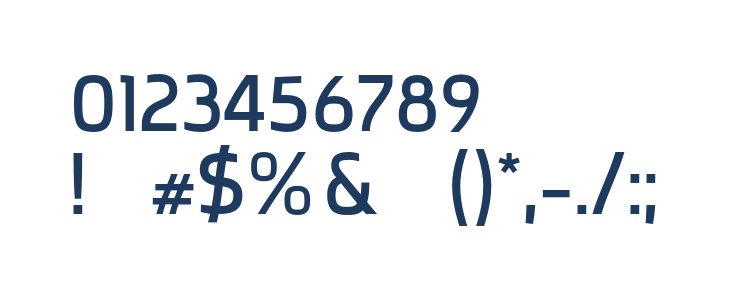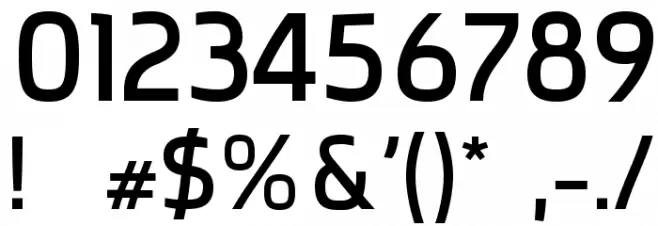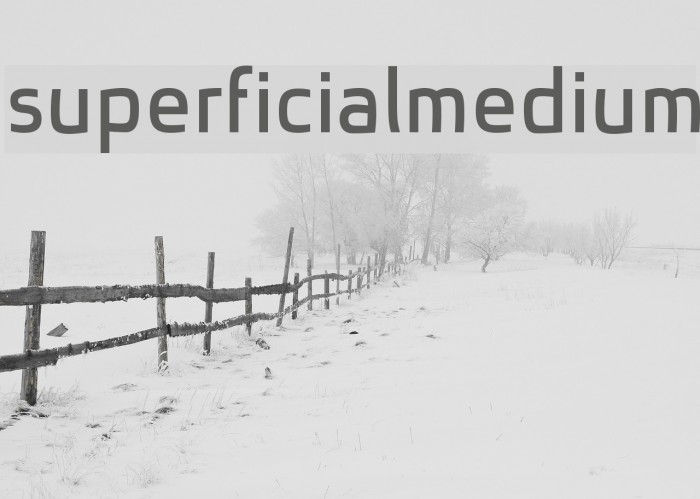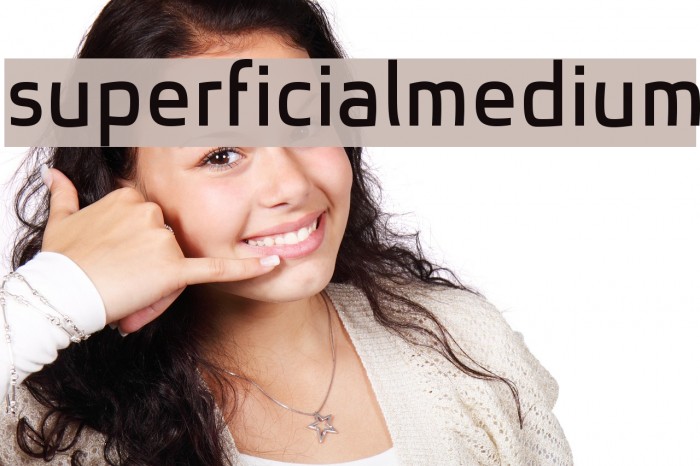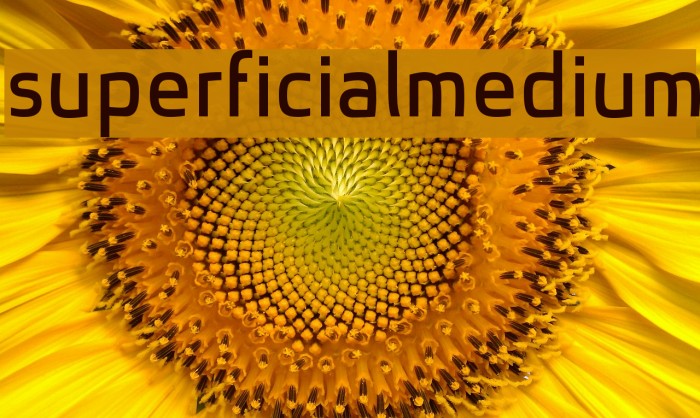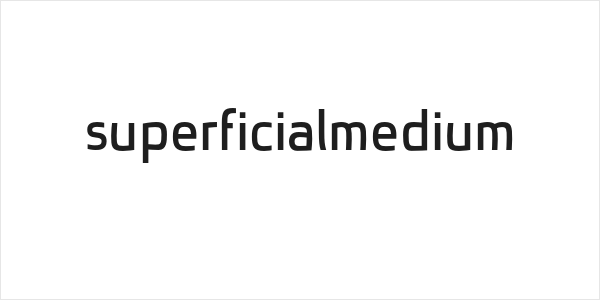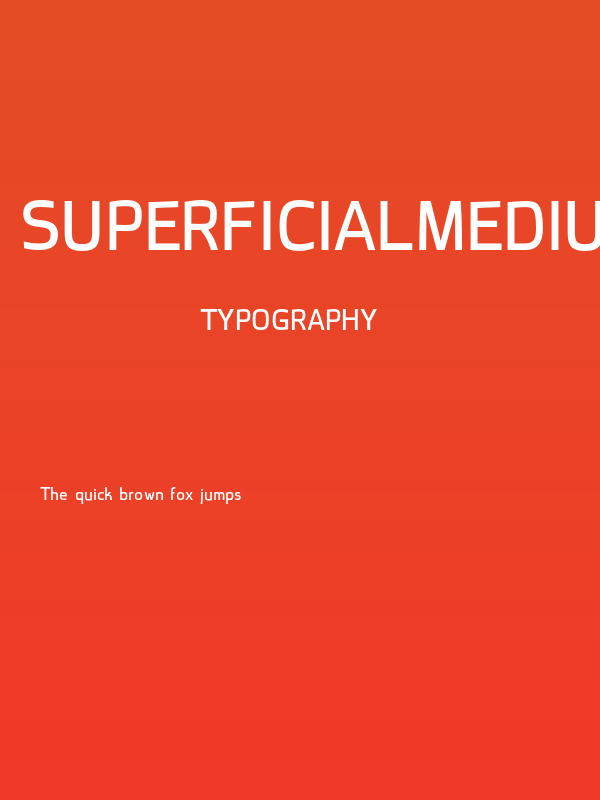
superficialmedium Font
superficialmedium Description
This font features a clean and modern sans-serif design with a geometric influence. The characters are well-proportioned, offering a harmonious balance between straight lines and subtle curves. The uppercase letters are bold and assertive, while the lowercase letters maintain a friendly and approachable appearance. The numerals are distinct and easy to read, making them suitable for various applications. Special characters are included, providing versatility for different contexts. The overall design is sleek and professional, making it ideal for contemporary branding and digital interfaces.
| Proposed Projects | Ideal for branding, digital interfaces, advertising, and editorial design. |